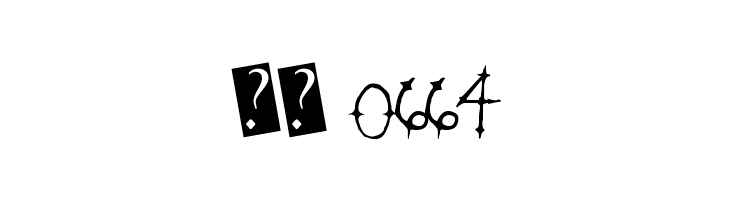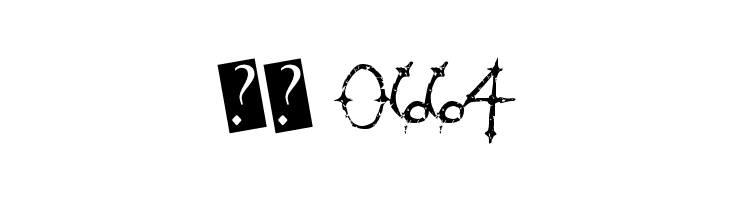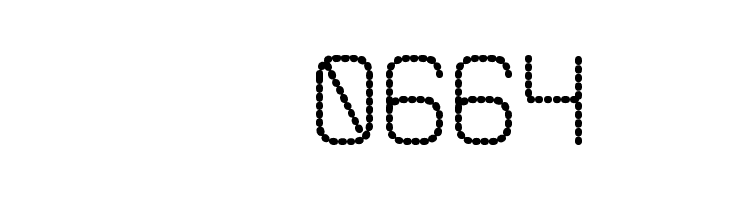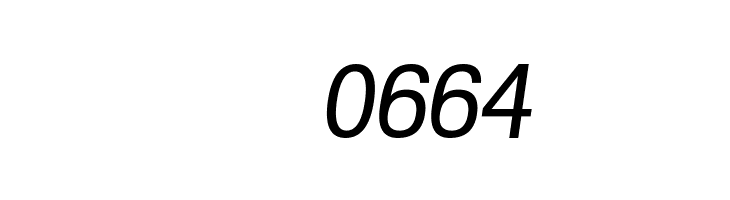
( Fonts by Yan Amorim )
A bold, graffiti-inspired font with a hand-painted, dynamic style.
( paintblack - www.paintblackeditions.org/ )
A bold, playful, hand-drawn font with irregular, quirky characters.
A distressed, hand-drawn font with an edgy, playful style.
A playful, hand-drawn font with rounded, flowing characters.
( Typhoon Type - Suthi Srisopha - www.typhoontype.net )
A decorative cursive font with elegant, flowing strokes and artistic flourishes.
( Typhoon Type - Suthi Srisopha - www.typhoontype.net )
A cursive, handwritten font with elegant, flowing strokes.
( Wacaksara Co - www.wacaksara.co )
A playful, bold handwritten font with flowing, connected letters.
A bold, playful font with rounded edges and a whimsical style.
A bold, decorative font with a 3D shadow effect and geometric design.
An elegant, high-contrast script font with ornate, flowing characters.
A bold, geometric font with a modern, blocky design.
A bold, geometric font with a strong, collegiate style.
A bold, geometric font with a blocky, digital appearance.
( Fonts by Indriyanti )
( PutraCetol Studio - Putra Novembria Candra Kusuma - creativemarket.com/putracetol )
A geometric, monospaced font with a modern, digital look.
A classic serif font with high contrast and elegant serifs.
( Fonts by Md Shohail Bhuian )
Casual handwritten font with rounded edges.
A bold, decorative font with thorny, barbed wire-like accents.
A gothic, thorny font with sharp, decorative elements.
( Fonts by Typeline Studio )
A bold, rounded font with a playful and friendly style.
A bold, geometric font with an industrial, stencil-like appearance.
A bold, playful handwritten font with rounded edges and a casual style.
A modern, italic sans-serif font with clean lines and balanced proportions.
( Fonts by Southype )
A modern, dotted font with geometric precision and playful design.
A modern, geometric sans-serif font with balanced spacing and clean lines.
A modern, clean sans-serif font with uniform stroke width and excellent readability.
( Roland Huse Design - Roland Huse - rolandhuse.com )
A bold, high-contrast serif font with distinctive decorative elements.
A refined script font with flowing, interconnected letters and high contrast strokes.